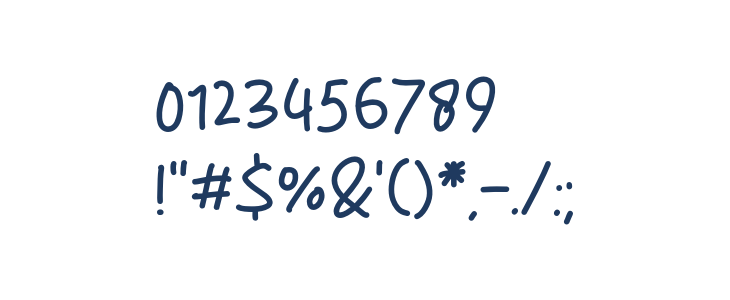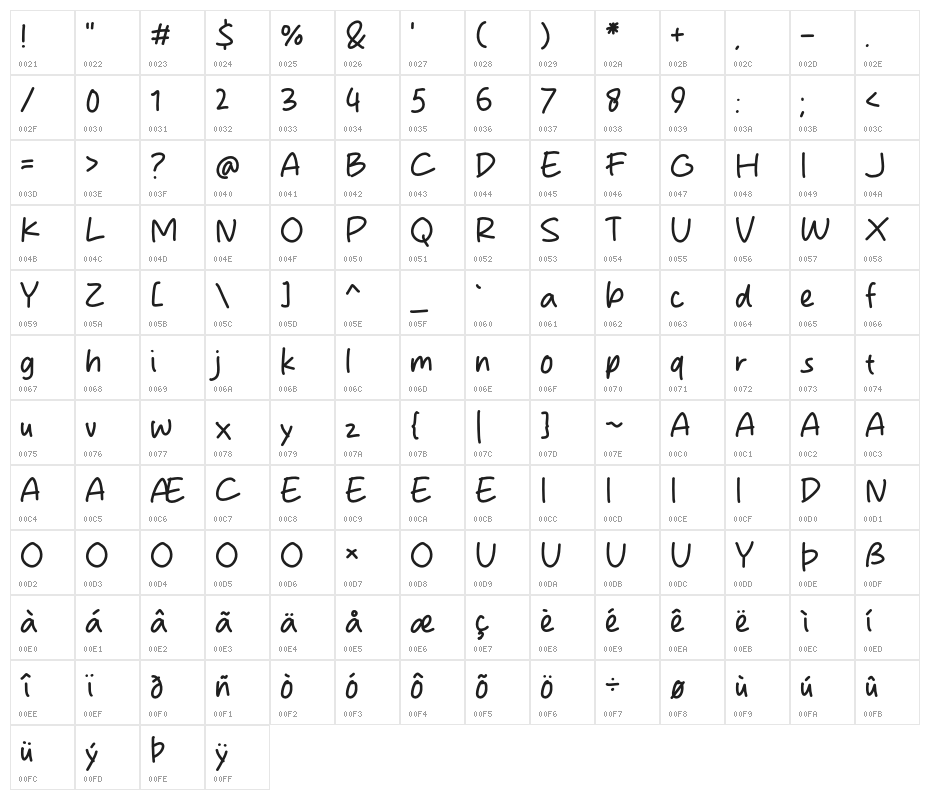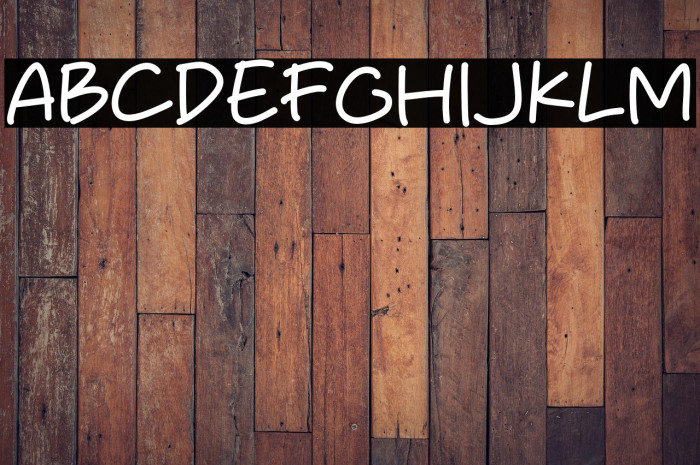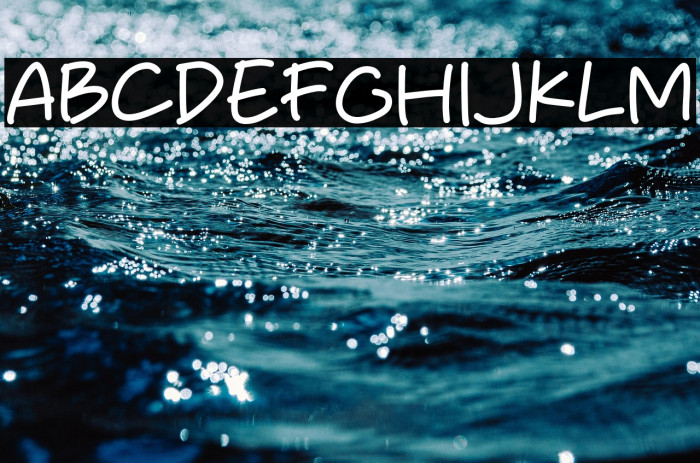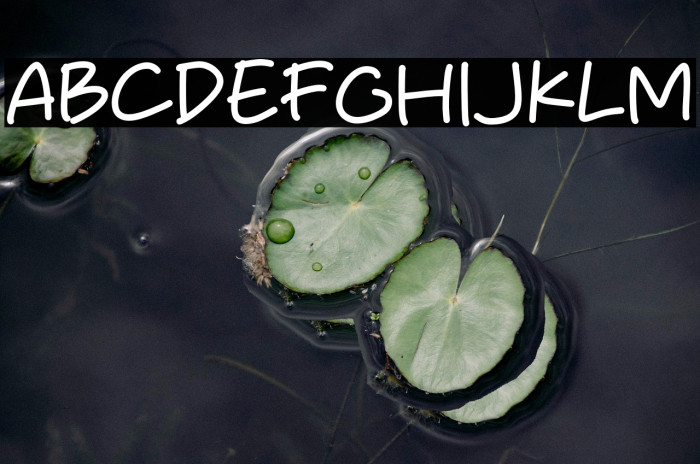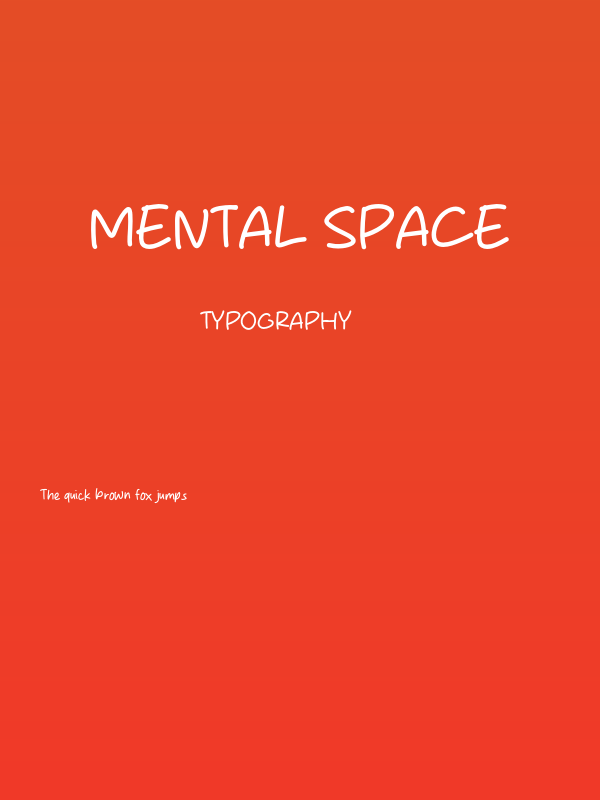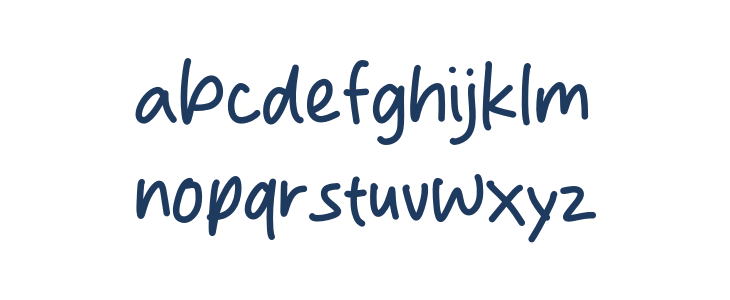
Mental Space Font
Mental Space Description
This font features a playful and casual handwritten style, characterized by smooth, rounded strokes and a slightly irregular baseline that adds a touch of whimsy. The letters are well-spaced, providing a clear and readable appearance. The uppercase and lowercase characters maintain a consistent style, with a friendly and approachable feel. Numbers and special characters are designed to match the overall aesthetic, making this font versatile for various applications. Its informal nature makes it suitable for creative projects, personal branding, and any context where a relaxed and friendly tone is desired.